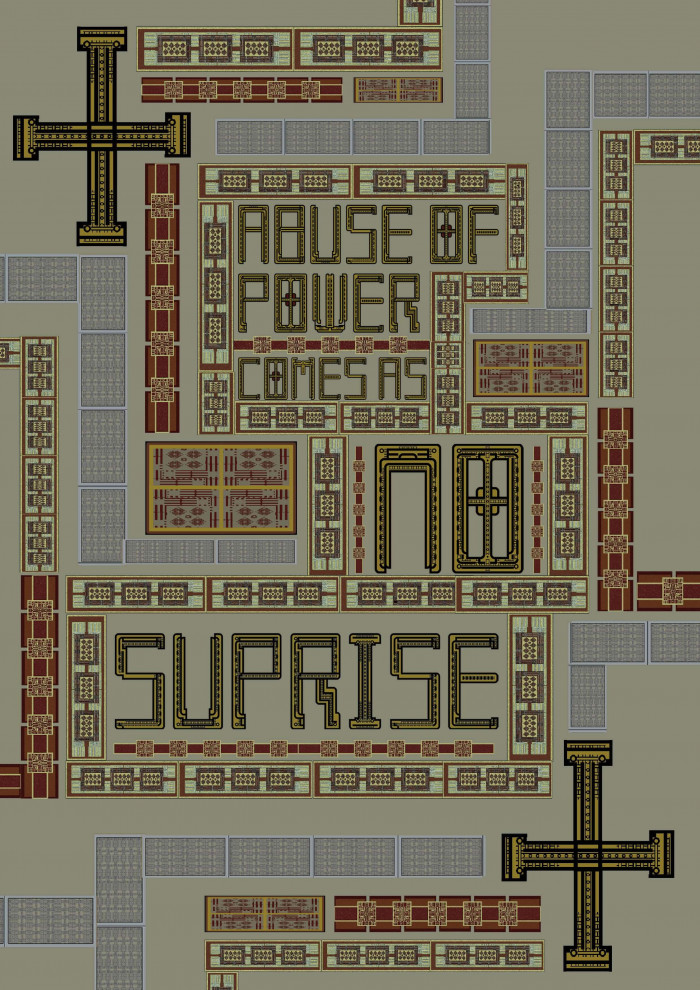
• This display typeface was inspired by the return to traditional Celtic iconography within the insular manuscripts of 6th Century Britain. Each letter is highly ornamented, incorporating chains of interlinked geometry that translate the flowing forms of Celtic knots into the grid based format of Fonstruct.